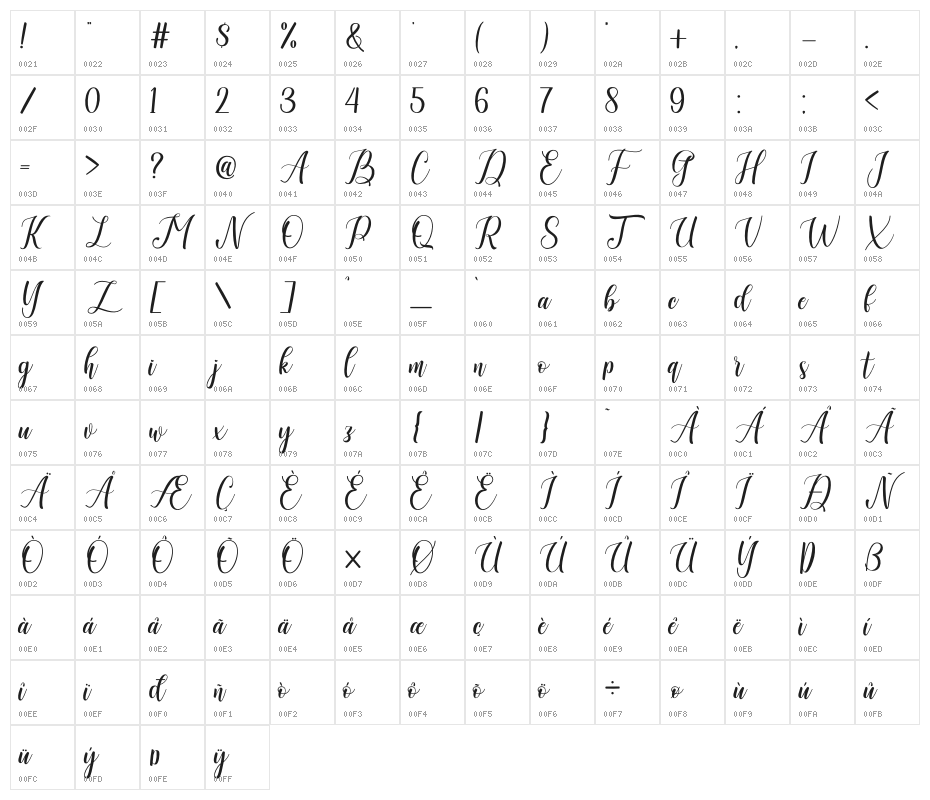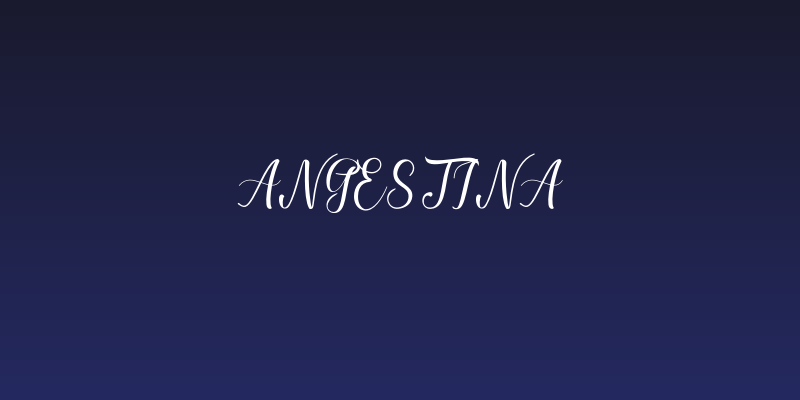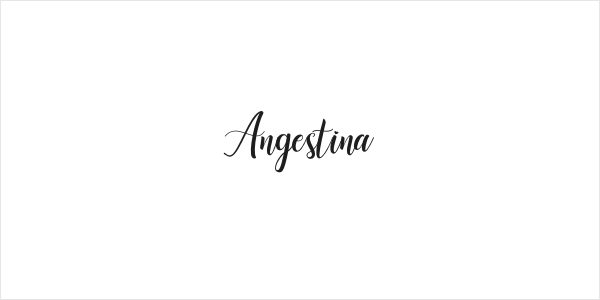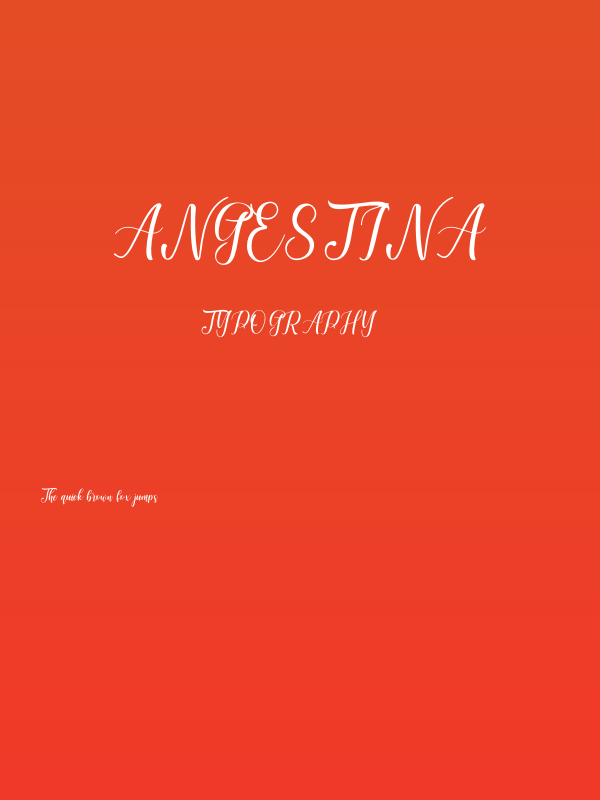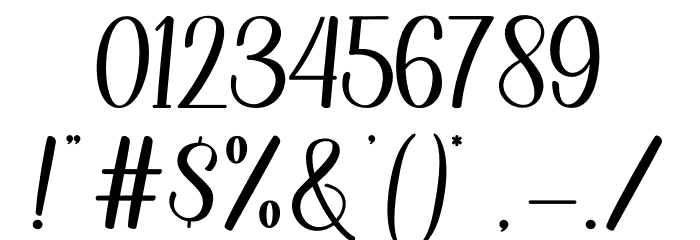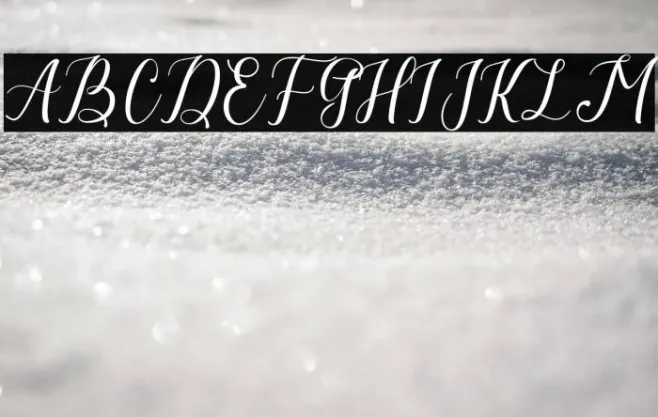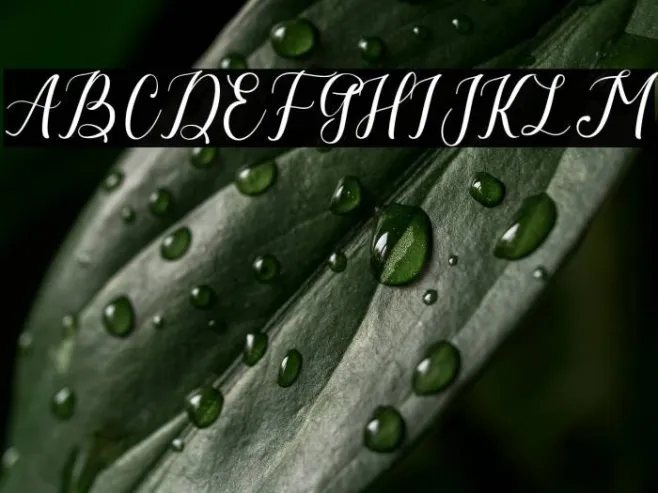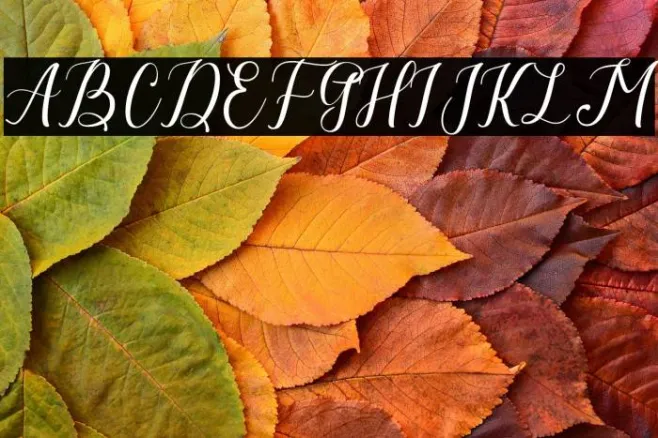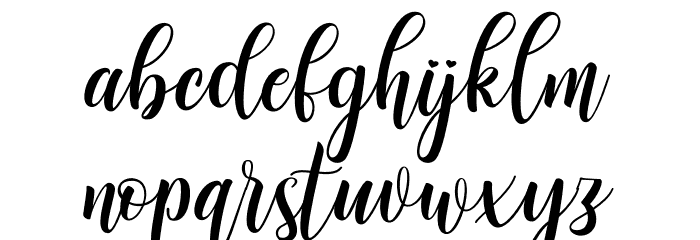
Angestina Font
Angestina Description
This font features an elegant and flowing script style, characterized by its smooth, cursive letterforms that convey a sense of sophistication and grace. The uppercase letters are tall and slender, with delicate loops and swashes that add a touch of flair. The lowercase letters maintain a consistent flow, with gentle curves and a slightly slanted orientation that enhances readability. The numerals are designed to complement the script style, maintaining a balance between elegance and clarity. Special characters are thoughtfully integrated, ensuring versatility in various design contexts. Overall, this font exudes a classic yet modern appeal, making it suitable for a wide range of applications.